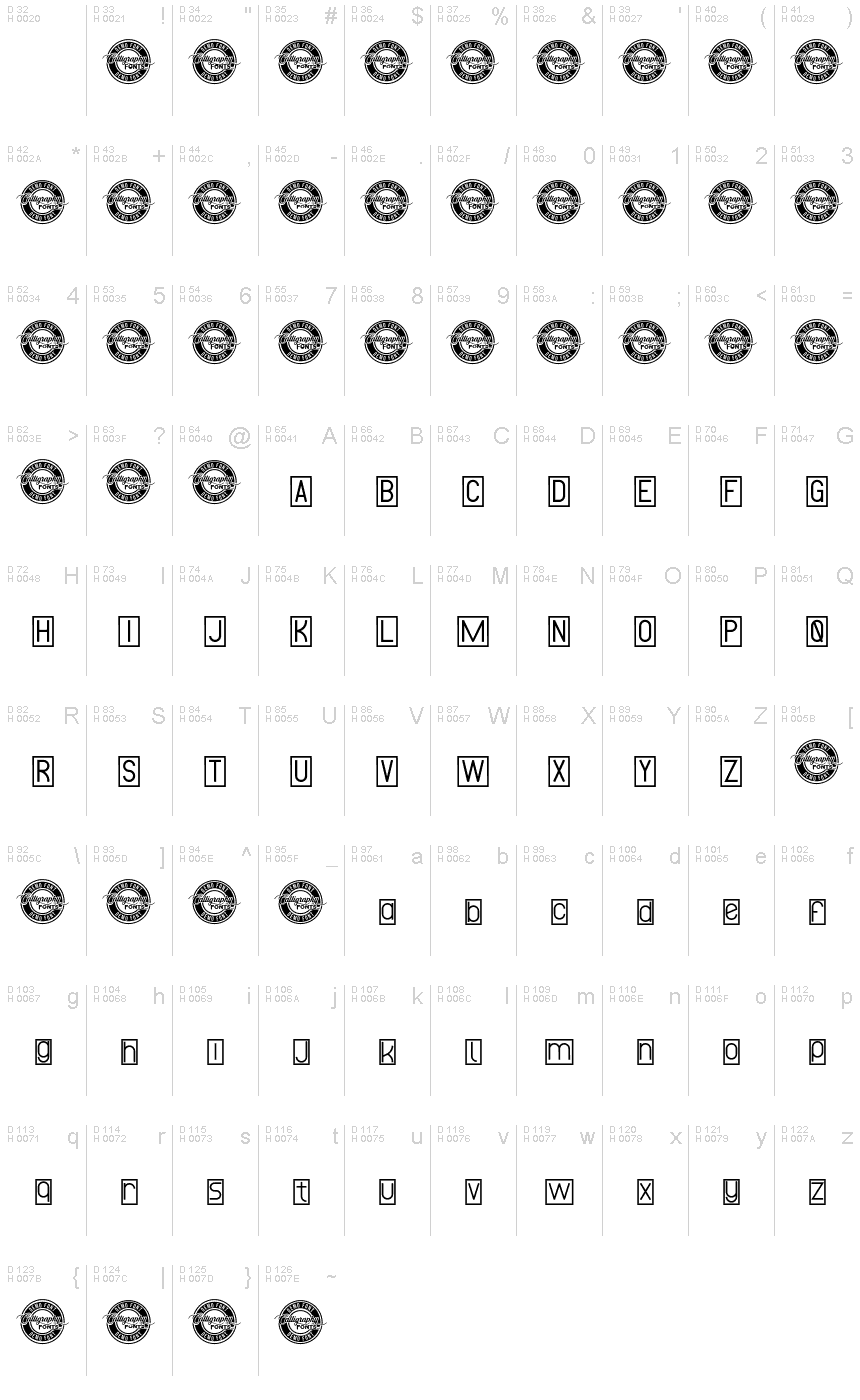
Stick Note Demo
Stick Note is a decorative display font designed by Shalsha & Sarah SP. Perfect for making bold statements, this light weight font features unique letterforms and eye-catching curves. Stick Note is great for projects such as product packaging, posters, social media graphics and more.